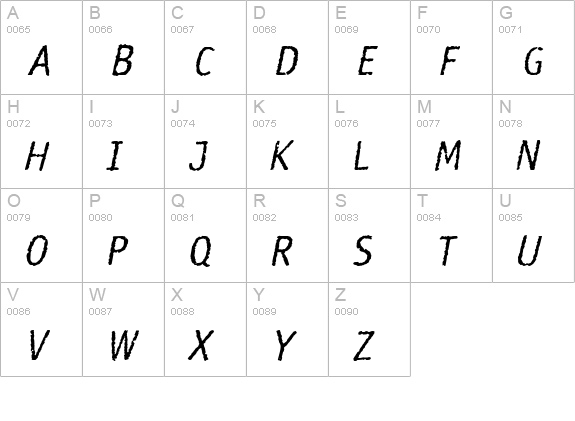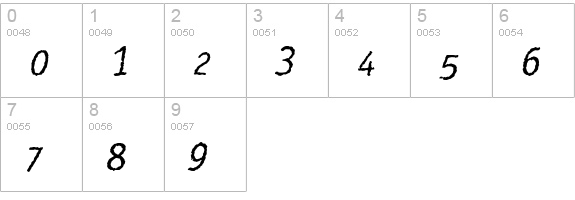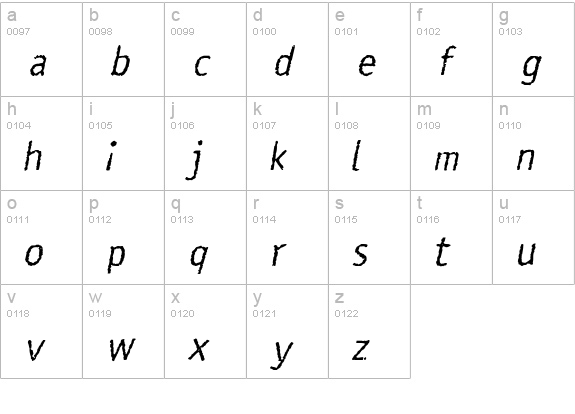
Rosango Italic Font Details
Rosango Italic is a distinctive, italic variant in the Rosango typeface family \xE2\x80\x94 well suited to design and typography projects.
Rosango Italic is a striking and elegant font that exudes sophistication and style. With its gracefully slanted letters and delicate curves, this typeface is perfect for adding a touch of whimsy and flair to any design project. Whether used for headings, logos, or body text, Rosango Italic commands attention and leaves a lasting impression. The best part? Rosango Italic is available for free download at FontsMarket.com. This means you can easily access and use this beautiful font in your creative endeavors without any cost. Don't miss out on the opportunity to enhance your projects with the timeless charm of Rosango Italic. Download it today and let your creativity soar!